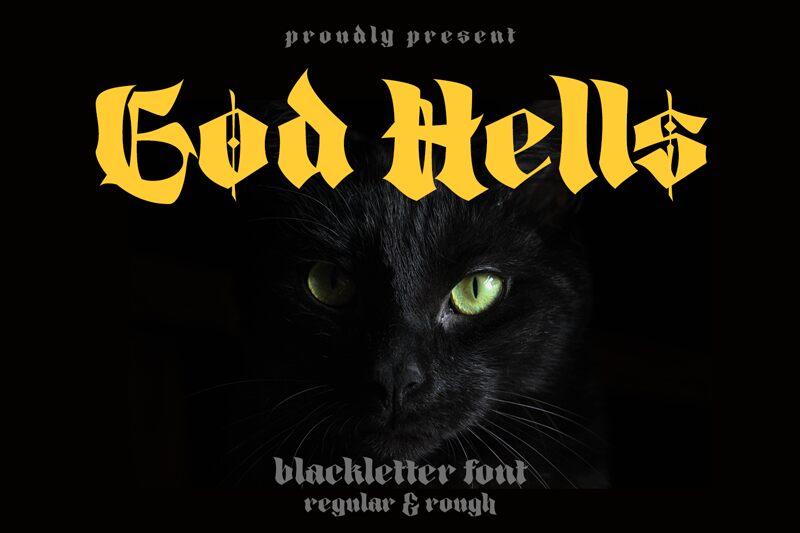
God Hells, designed by madeDeduk, is an extraordinary gothic font that exudes a modern aesthetic. With its extra-bold weight, this typeface commands attention and adds a touch of edginess to any design project. Perfect for album covers, horror movie posters, and tattoo designs, God Hells brings a dark and mysterious vibe to your creative work. Its clean lines and unique letterforms make it suitable for branding projects seeking an unconventional yet captivating visual identity. Embrace the darkness with God Hells and unleash your creativity in ways you never thought possible.